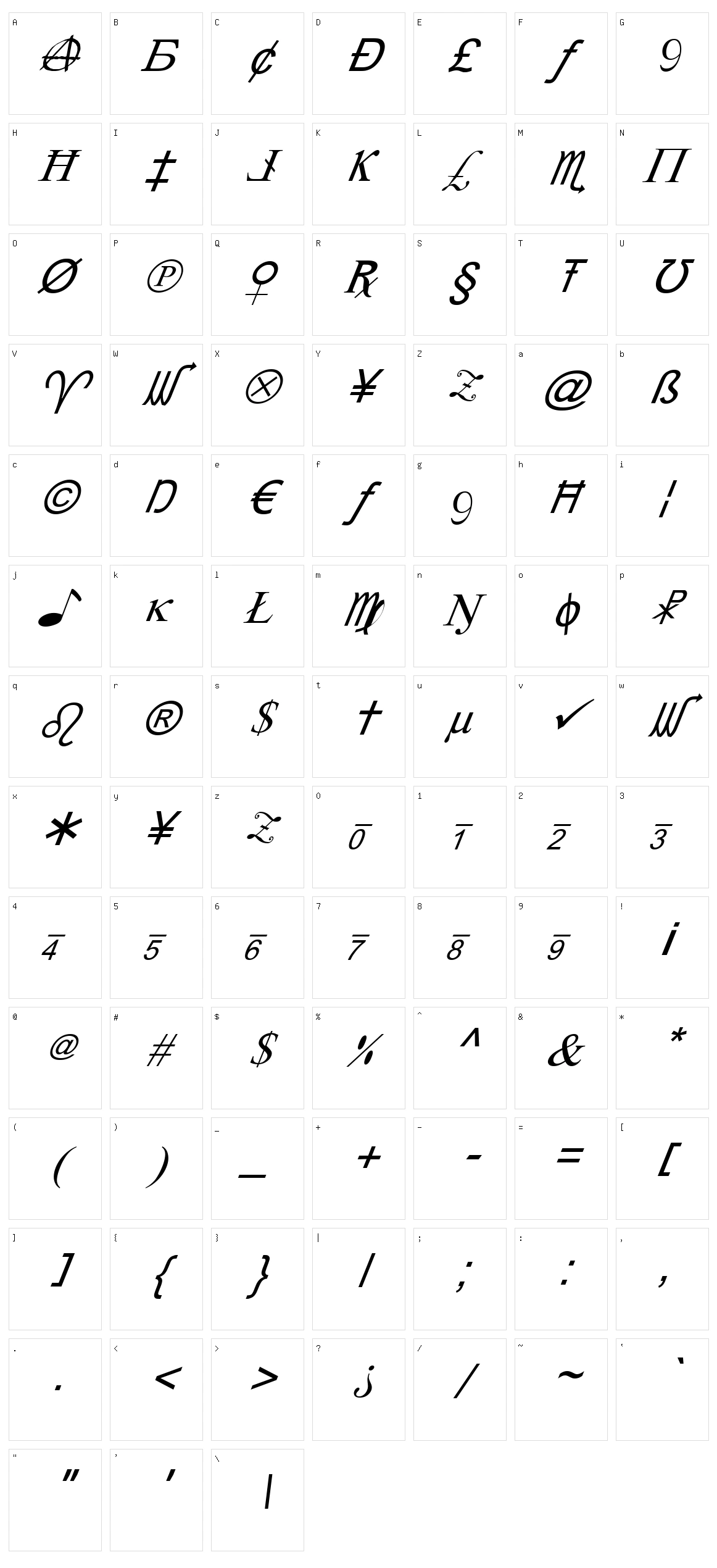
The free font X-Cryption is carefully designed by Iconian Fonts, showcasing a thoughtful balance of creativity and usability and falls under the Various font style. When you download the ZIP file, it contains only 130.48 KB of font files, making it lightweight and quick to download. Please review the license details below to understand permitted usage and distribution rights. If license information is not available, we recommend using this font for personal projects only or contacting the author directly for commercial usage permissions.
This font has several alternate characters in the upper and lower cases.